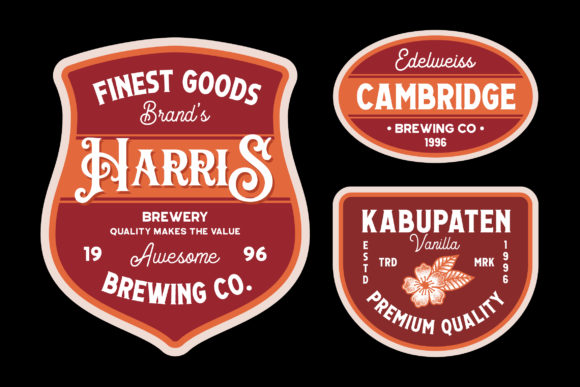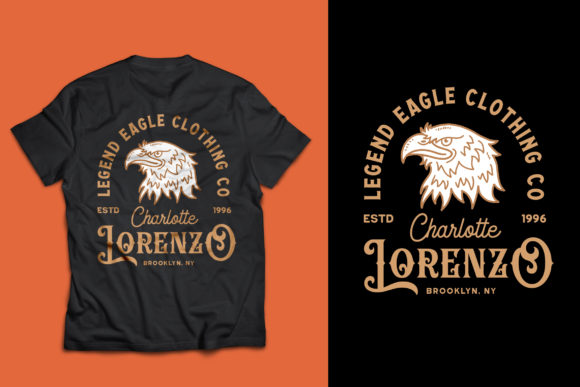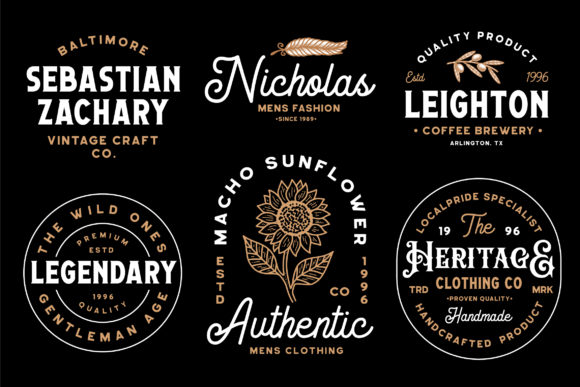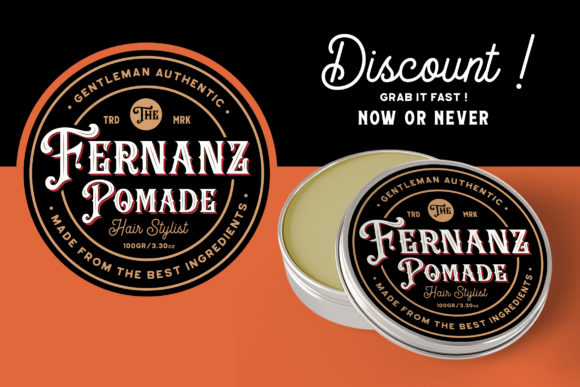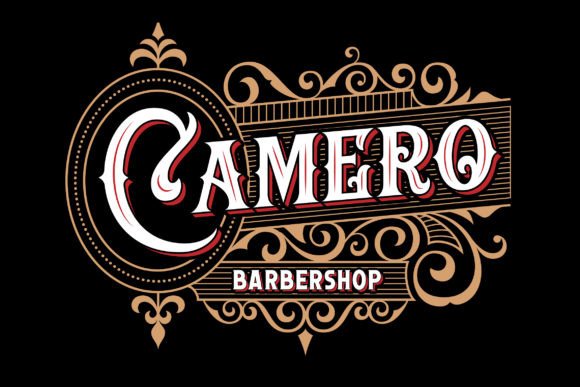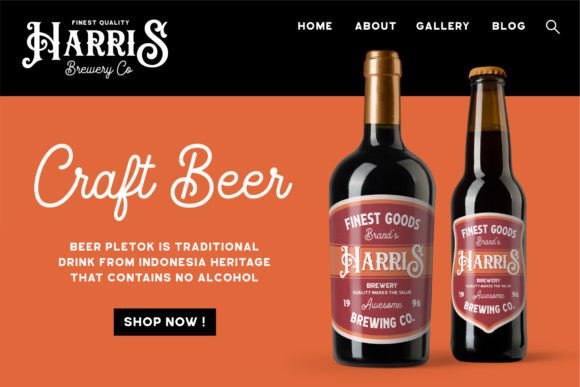
Introduction to Geovano Font
Imagine yourself in the middle of a creative project, surrounded by sketches and ideas, but something’s missing – a unique touch that sets your design apart. You start browsing through fonts, searching for the perfect one to bring your vision to life. And then, you stumble upon it – Geovano Font, a vintage display font that exudes elegance and sophistication.
With its lovely alternates and high-quality design, Geovano Font is a valuable resource for designers looking to add a touch of vintage charm to their creative projects. Whether you’re working on a poster, a brochure, or a website, this font is sure to make your design stand out. Plus, with a transparent background and free download available, it’s a design resource that won’t break the bank.
Key Features of Geovano Font
- Designed with a focus on elegance and sophistication, Geovano Font is perfect for creating visually stunning designs and branding materials.
- With its unique and modern style, Geovano Font is an ideal choice for designers working on creative projects that require a touch of sophistication and elegance.
- Geovano Font is a highly versatile design resource that can be used for a wide range of applications, from logos and branding materials to digital products and marketing materials.
Honest Review: Geovano Font
As a designer, I’m always on the lookout for high-quality design resources to elevate my creative projects. Recently, I had the chance to work with the Geovano Font, and I’m excited to share my honest review with you.
- ✨ High-quality design: The Geovano Font boasts a sleek, modern design that’s perfect for a variety of creative projects, from branding to digital interfaces.
- ⚠️ Limited character set: While the font is high-quality, the character set is relatively limited, which may not be suitable for projects that require a wide range of characters.
Overall, I’m impressed with the Geovano Font’s design quality and versatility. While it may have some limitations, it’s a great resource for designers working on digital projects or those looking for a modern, sleek font. With its free download option, it’s definitely worth checking out.
Getting the Most Out of Geovano Font
To get the most out of Geovano Font, use it in conjunction with a transparent background to create a unique design resource. Experiment with different font sizes and styles to find the perfect combination for your creative project.
Geovano Font is ideal for various design projects, including:
- Logo creation
- Infographic design